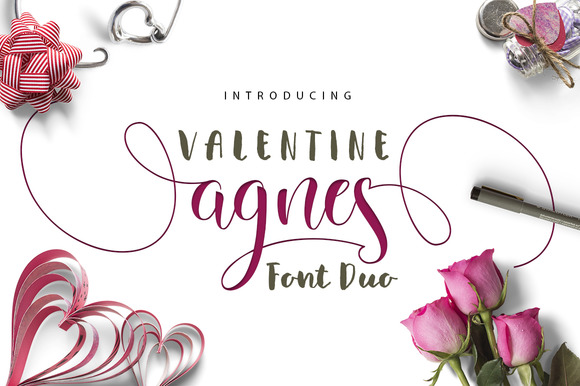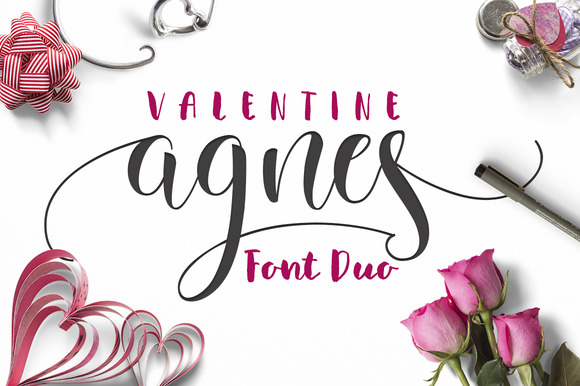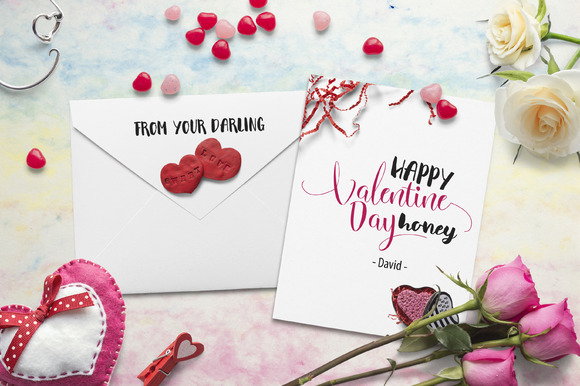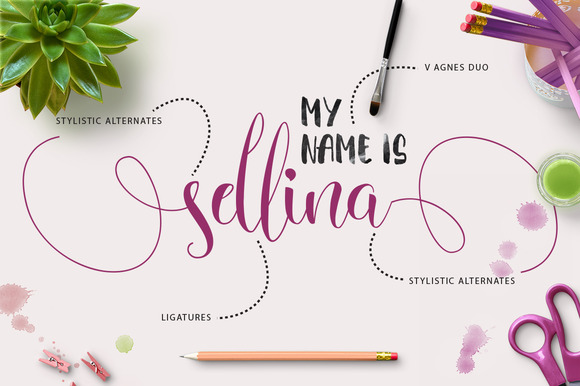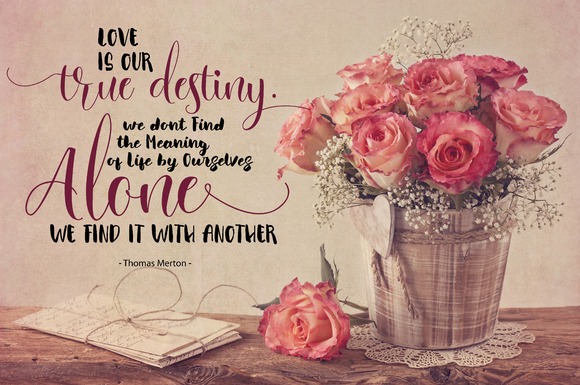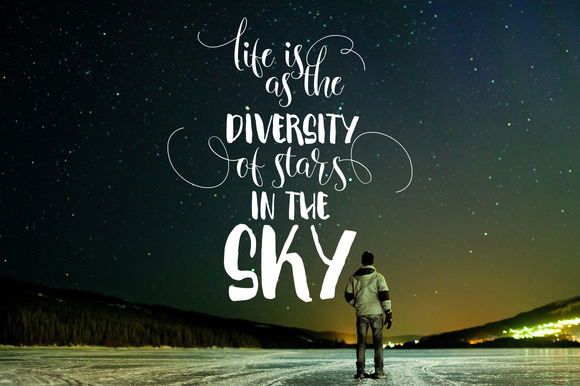
Valentine Agnes Font
About Valentine Agnes Font
The Valentine Agnes Font Duo are 2 beautiful elegant handwritten fonts that are very complimentary and allow for creating stunning designs.
The fonts are packed with extra characters with beautiful swashes and swooshes that are accessible in any application using PUA encoding.
The Valentine Agnes font features:
Uppercase & Lowercase characters
Numeral & Punctuation
International Glyphs
PUA Encoding
Ligatures
Stylistic Alternates
The Valentine Agnes Font Duo features:
Uppercase & Lowercase
Numeral